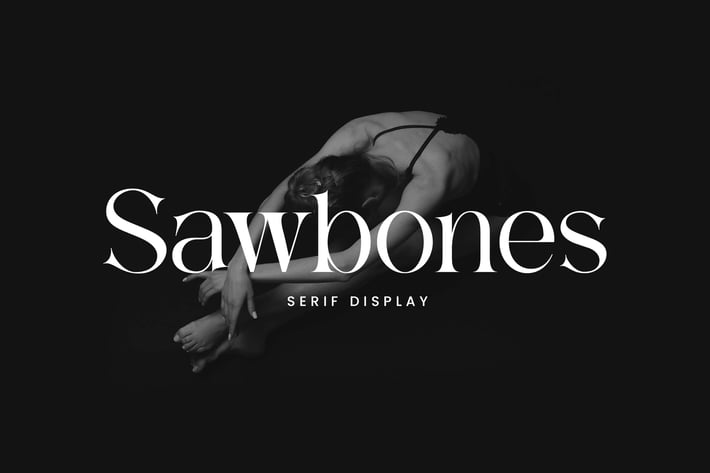
Sawbones Serif Display Font
Introducing our new product the name is Sawbones Serif Display Font. Sawbones Serif Display Font that feels beautiful classy, elegant, and modern. This font is perfectly suited for a wide variety of projects, such as signature, stationery, logo, wedding, typography quotes, magazine or book covers, website headers, clothing, branding, packaging design, and more. Also, fashion-related branding or editorial design displays both masculine and feminine qualities.